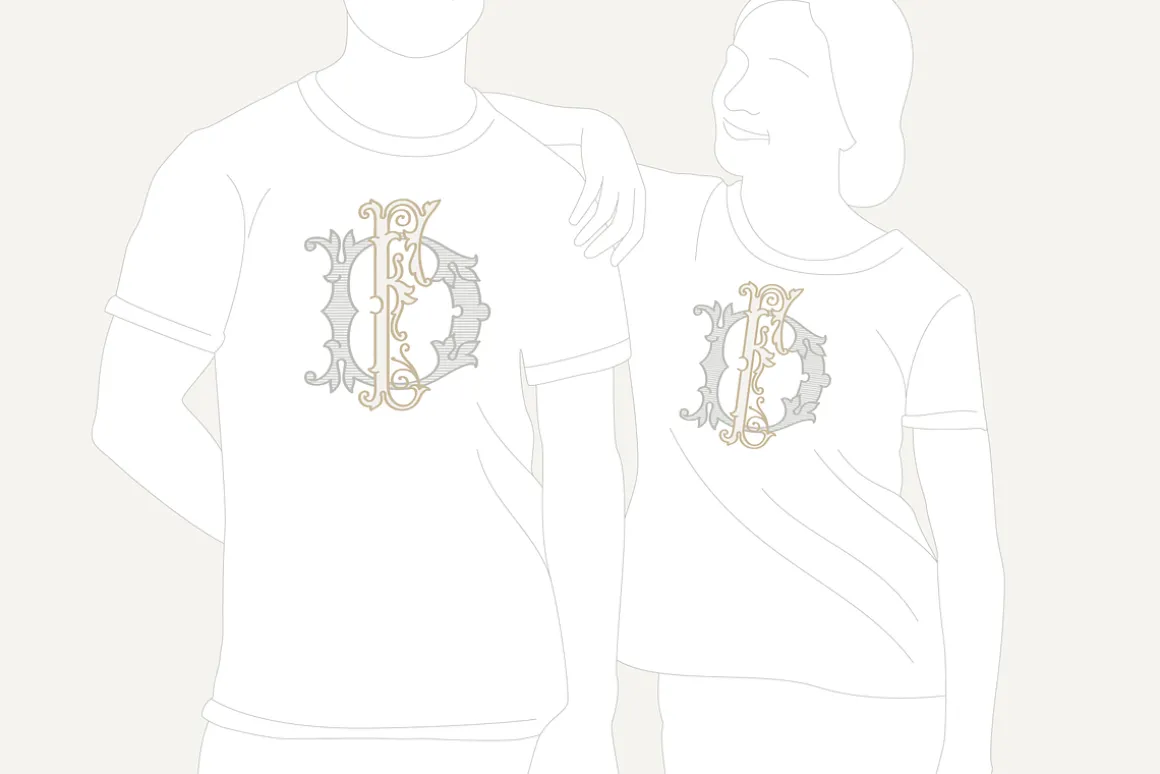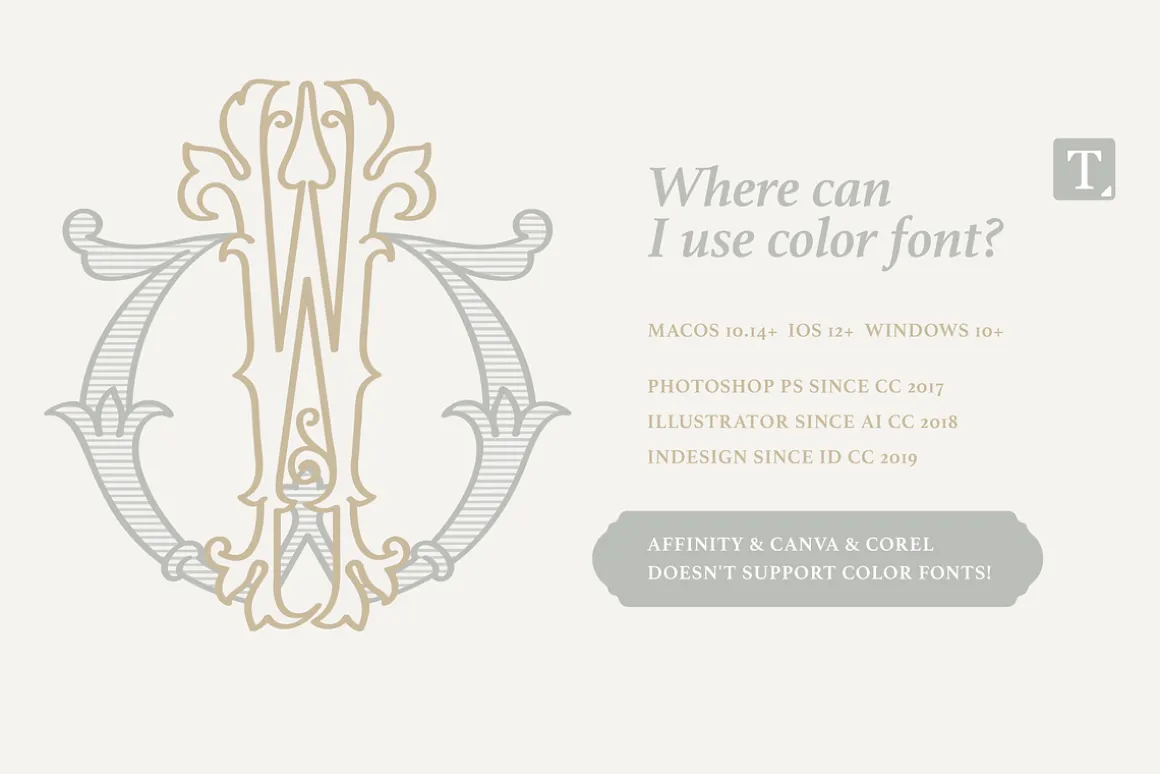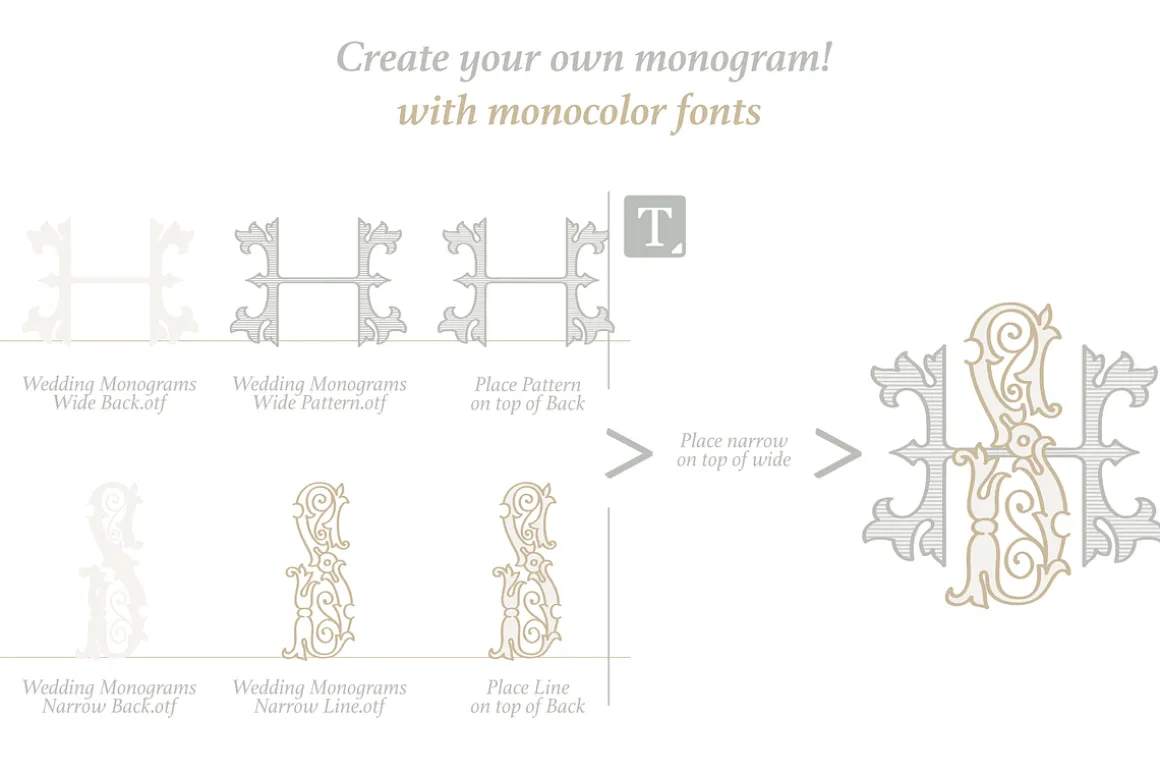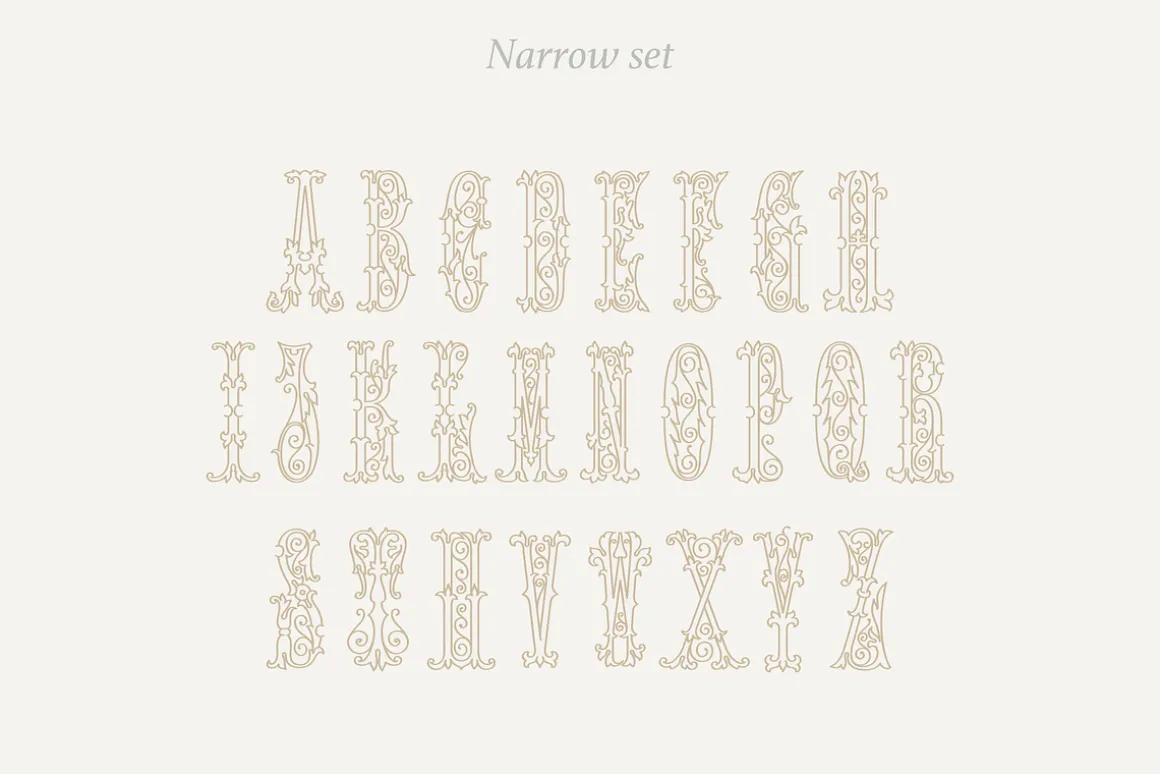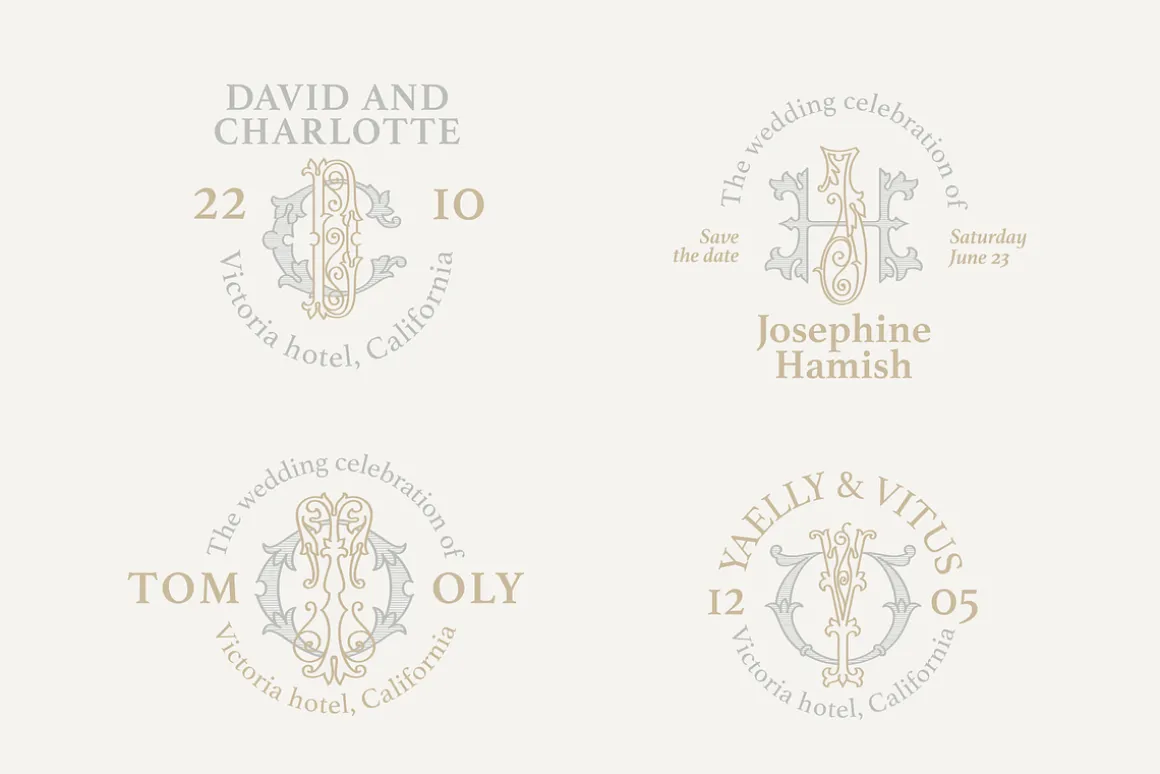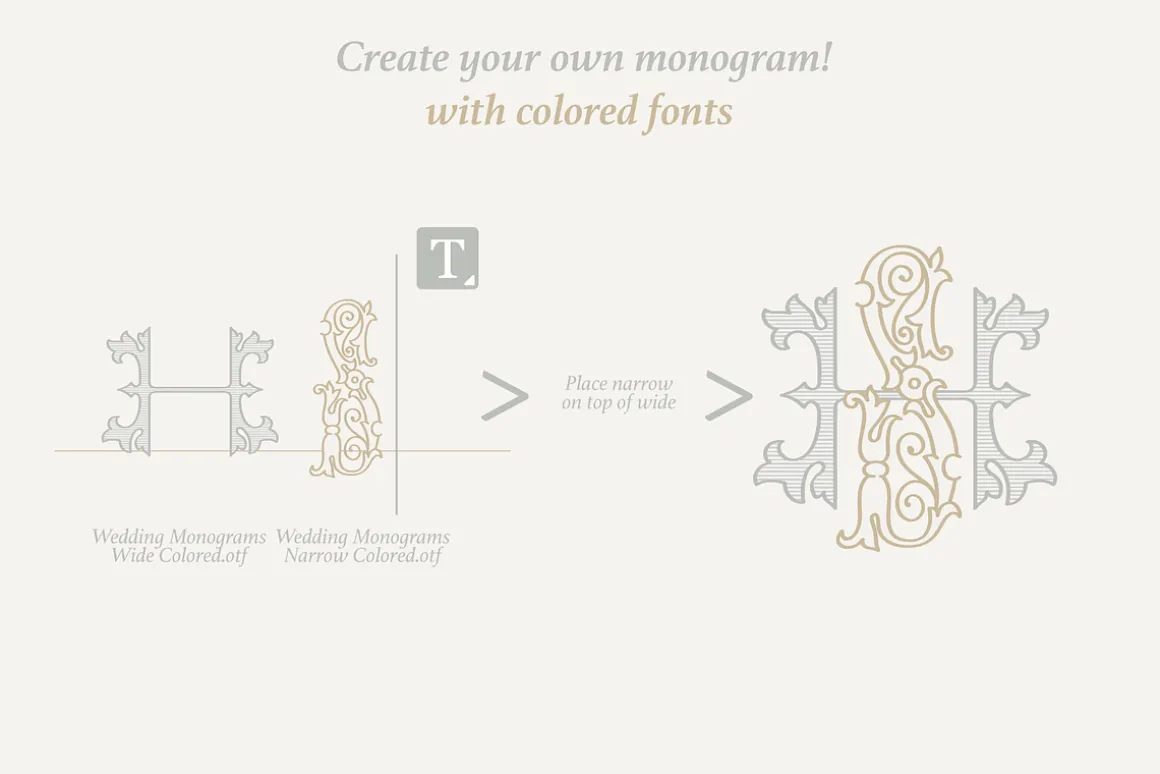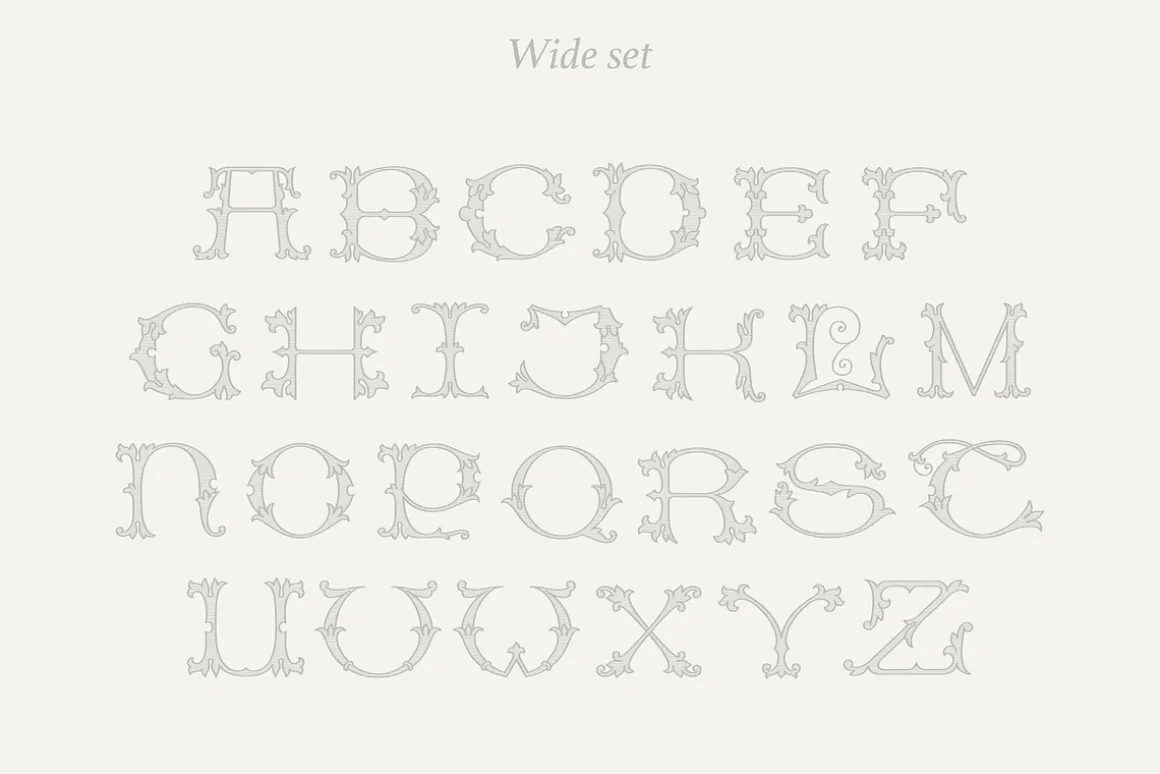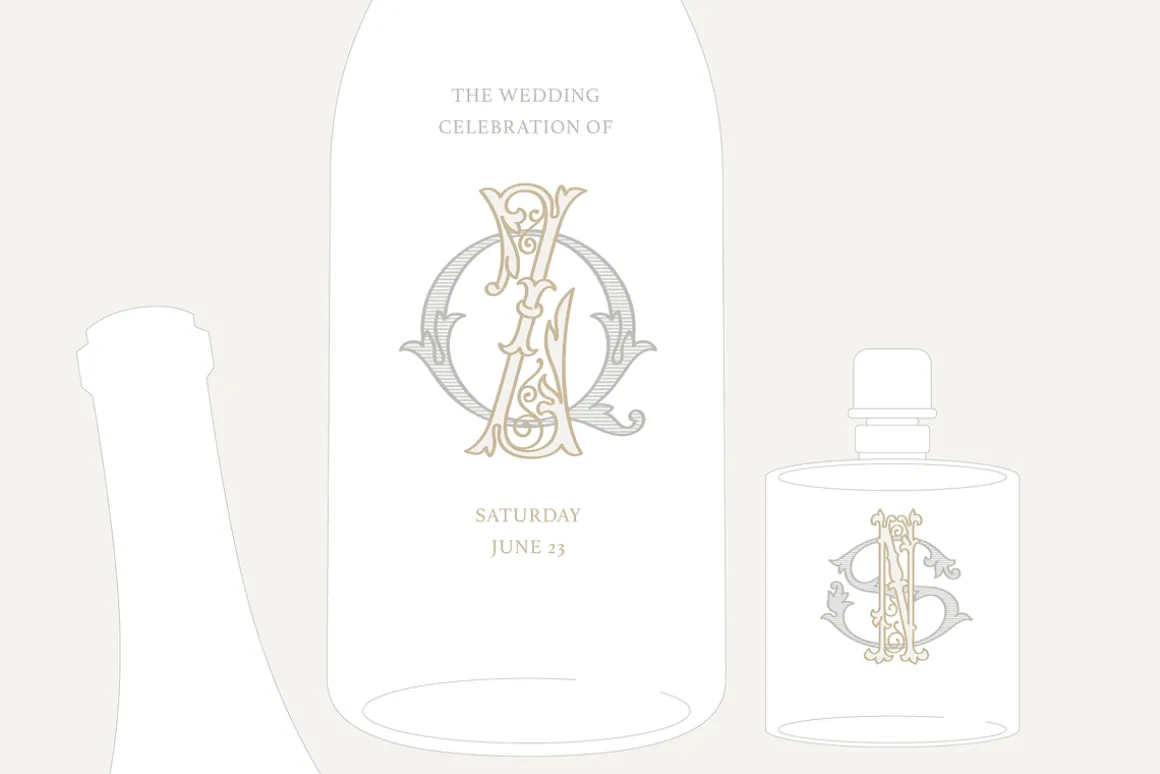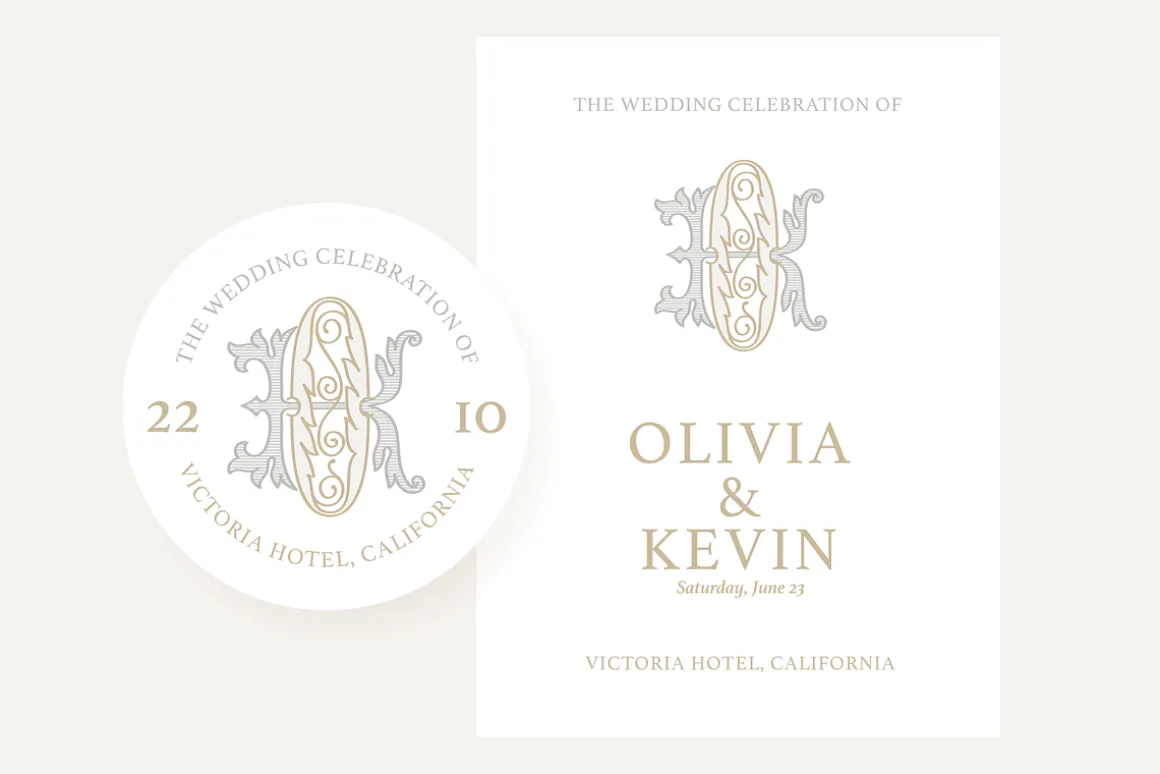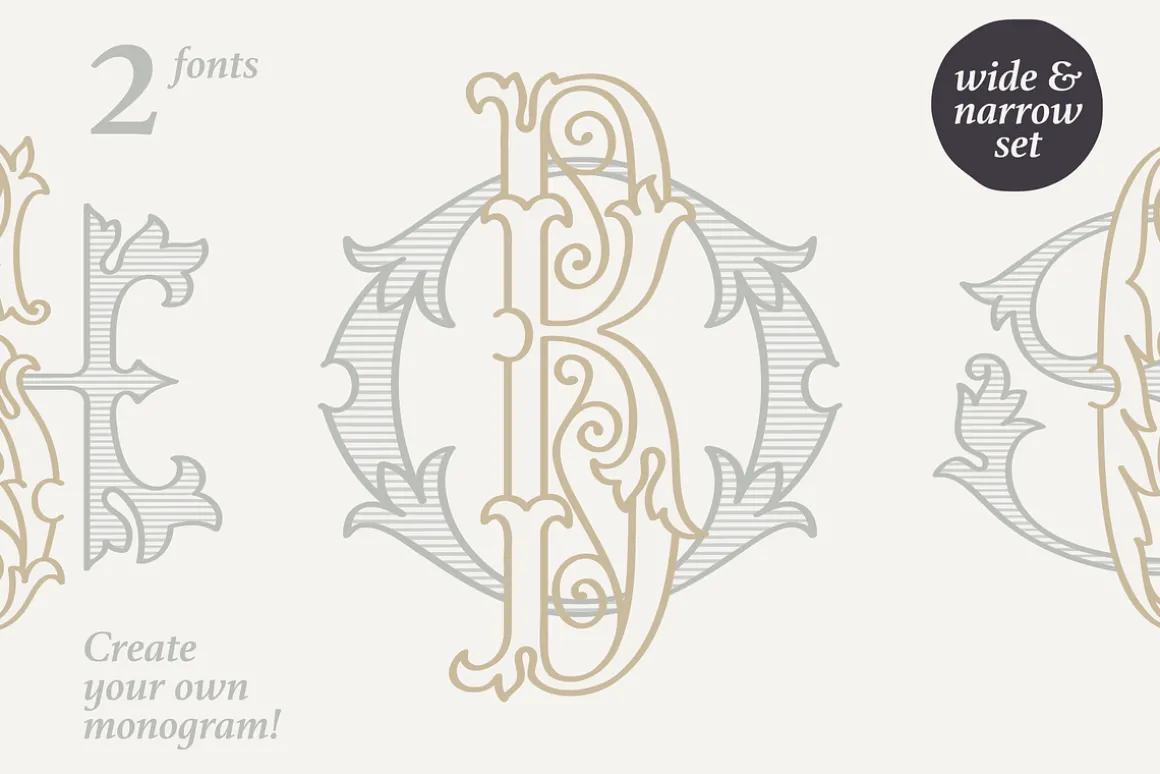
Wedding monograms is a font family in elegant historical style. This family of two character monograms was inspired by “Course of women’s needlework” published in 1887.
You’ll get the set includes Wide and Narrow capitals, so you can make your own monogram, by combining letters you want. +SVG files as well.